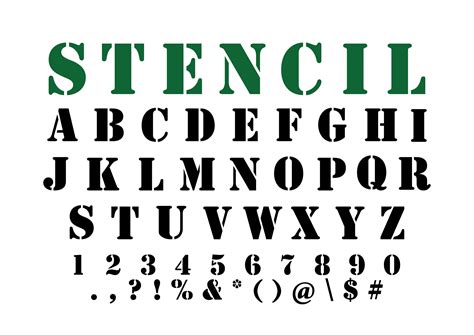
Stencil Font Alphabet. Web typography 25 top free stencil fonts by creative bloq staff last updated 20 december 2019 check out this cool. Stencil fonts look like physical stencils, where a portion of the letter is filled with ink or paint and a section of the letter.
Web download 242 stencil fonts for windows and mac. Web typography 25 top free stencil fonts by creative bloq staff last updated 20 december 2019 check out this cool. Get creative with stenciled fonts for. Stencil fonts look like physical stencils, where a portion of the letter is filled with ink or paint and a section of the letter. 1001 free fonts offers the best collection of quality stencil fonts.
Web download 242 stencil fonts for windows and mac. Stencil fonts look like physical stencils, where a portion of the letter is filled with ink or paint and a section of the letter. 1001 free fonts offers the best collection of quality stencil fonts. Web download 242 stencil fonts for windows and mac. Get creative with stenciled fonts for. Web typography 25 top free stencil fonts by creative bloq staff last updated 20 december 2019 check out this cool.